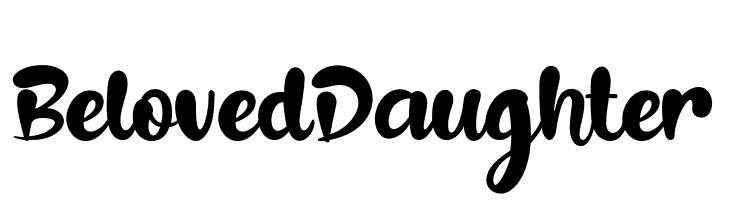
A playful, handwritten font with a casual and friendly style.
A futuristic, geometric font with bold, stencil-like characters.
A bold, decorative font with a three-dimensional shadow effect.
A modern, geometric font with angular and tech-inspired design.
A bold, italicized brush font with expanded, expressive strokes.
A bold, edgy font with irregular, dynamic strokes.
A bold, expressive handwritten font with fluid, cursive strokes.
A sleek, geometric font with thin lines and a minimalist aesthetic.
A bold, playful font with geometric and organic elements.
A lively, flowing script font with elegant cursive letterforms.
设计师偏爱 Lost In The Sky, Silver Bend-Inverse, Rusher DemiBold, New GLADISHdemo Fancy and Kumba Brush Expanded Italic,因为其造型干净、适用范围广—— 从品牌识别到落地页、海报都能胜任。